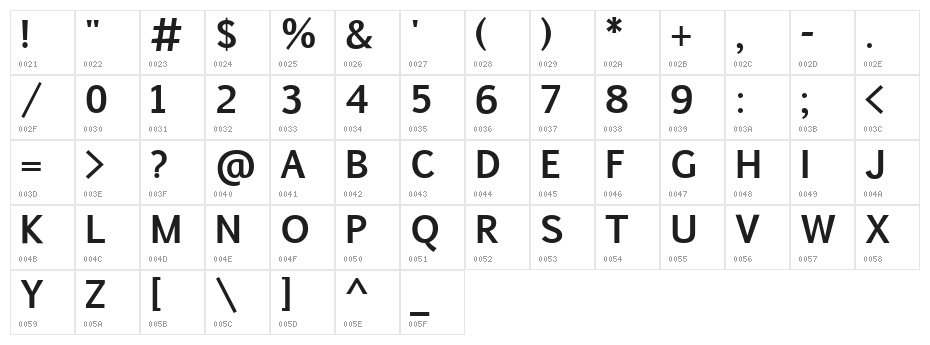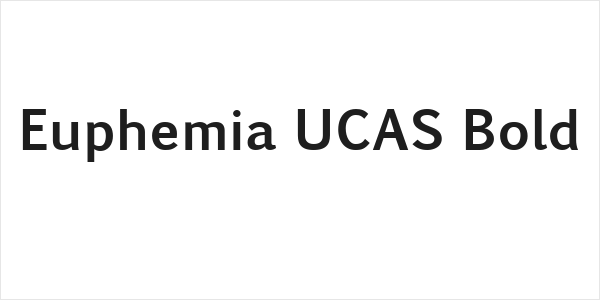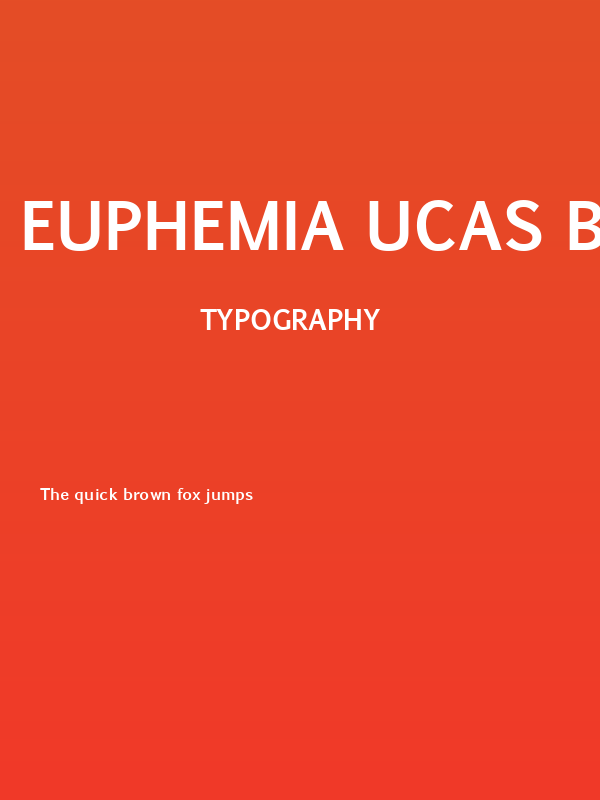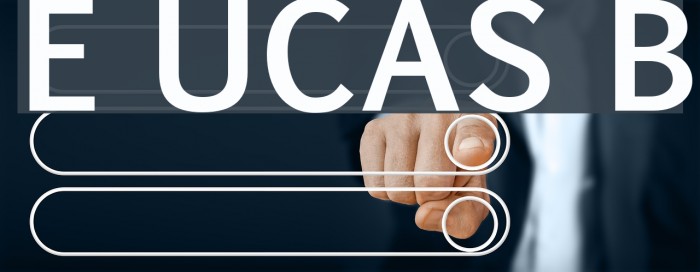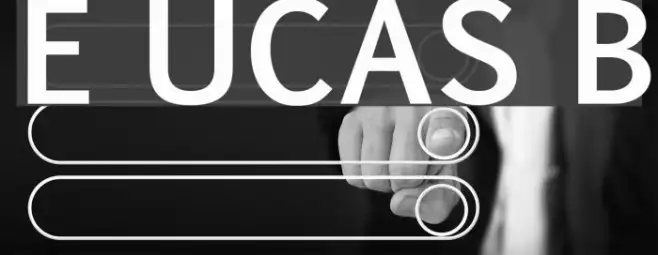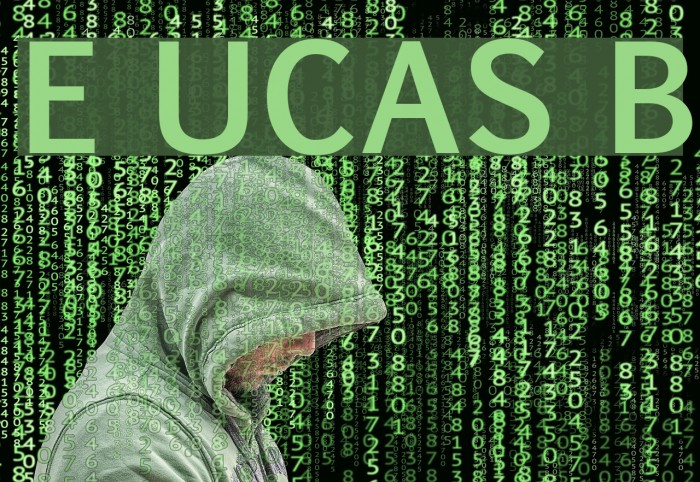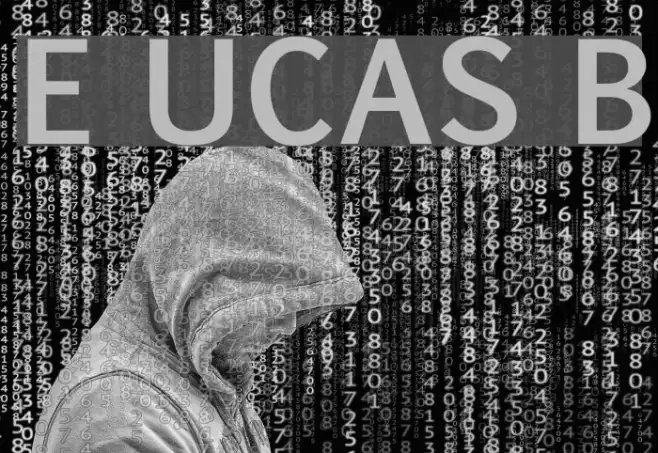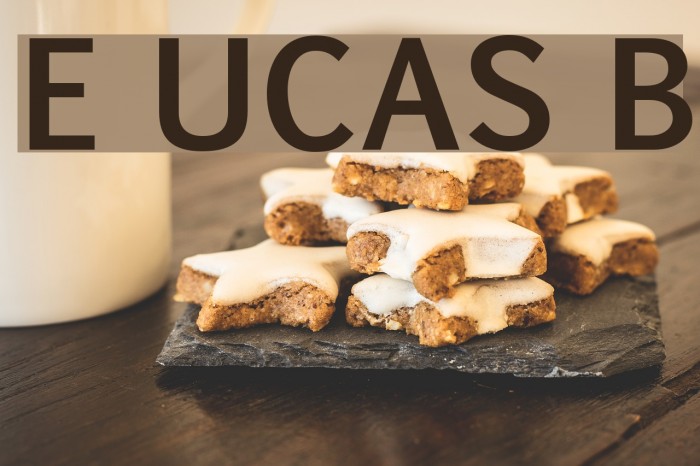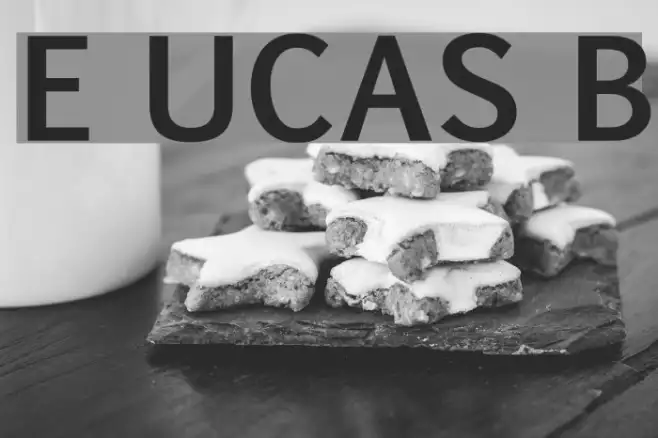
Euphemia UCAS Bold Font
Euphemia UCAS Bold Description
This font exhibits a clean and modern sans-serif style, characterized by its bold weight and uniform stroke width. The characters are well-proportioned, offering a balanced and harmonious appearance. The uppercase letters are strong and assertive, while the lowercase letters maintain a friendly and approachable feel. The numerals are clear and easy to read, making them suitable for various applications. Special characters are distinct and well-integrated into the overall design. The font's simplicity and clarity make it versatile for both digital and print media.